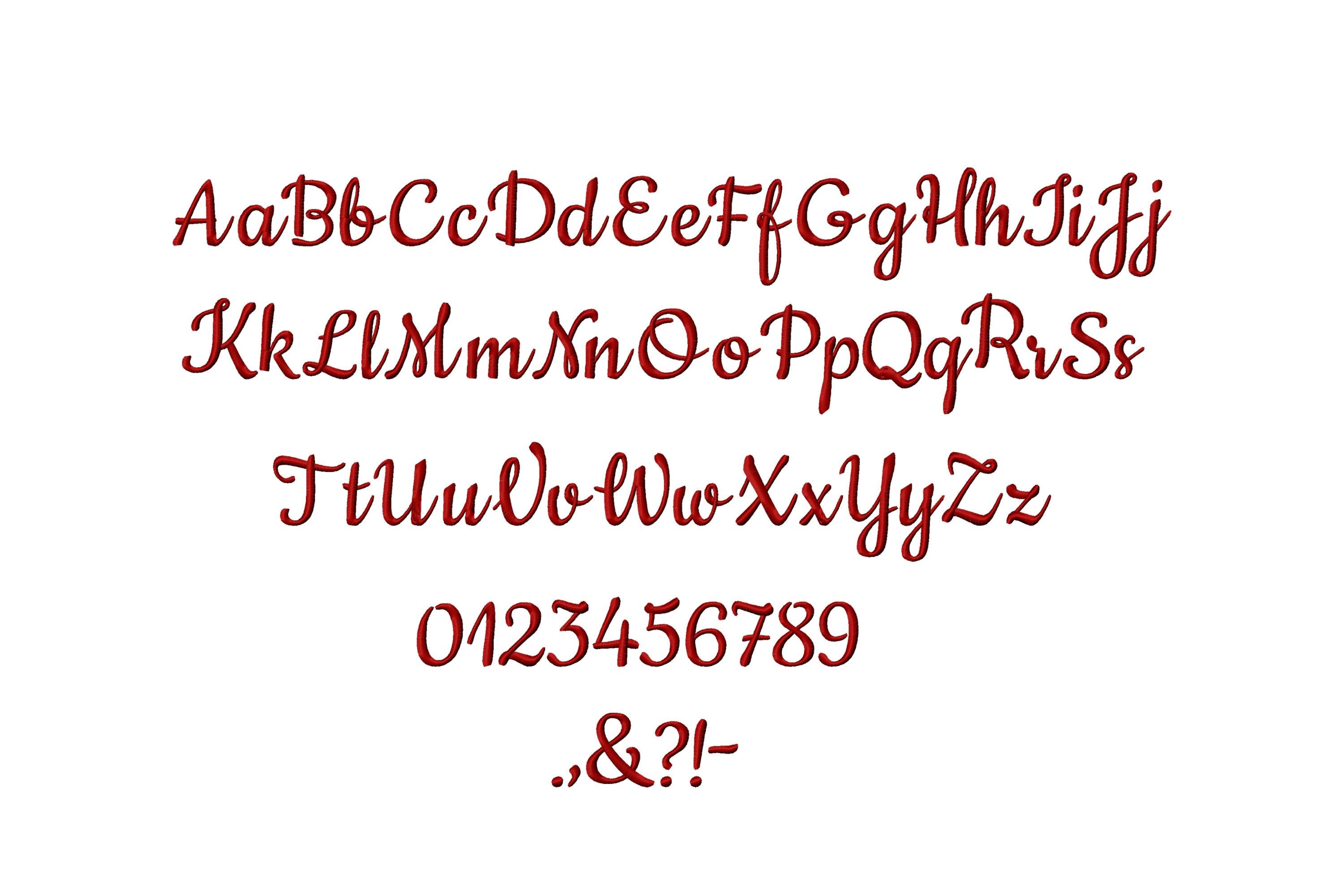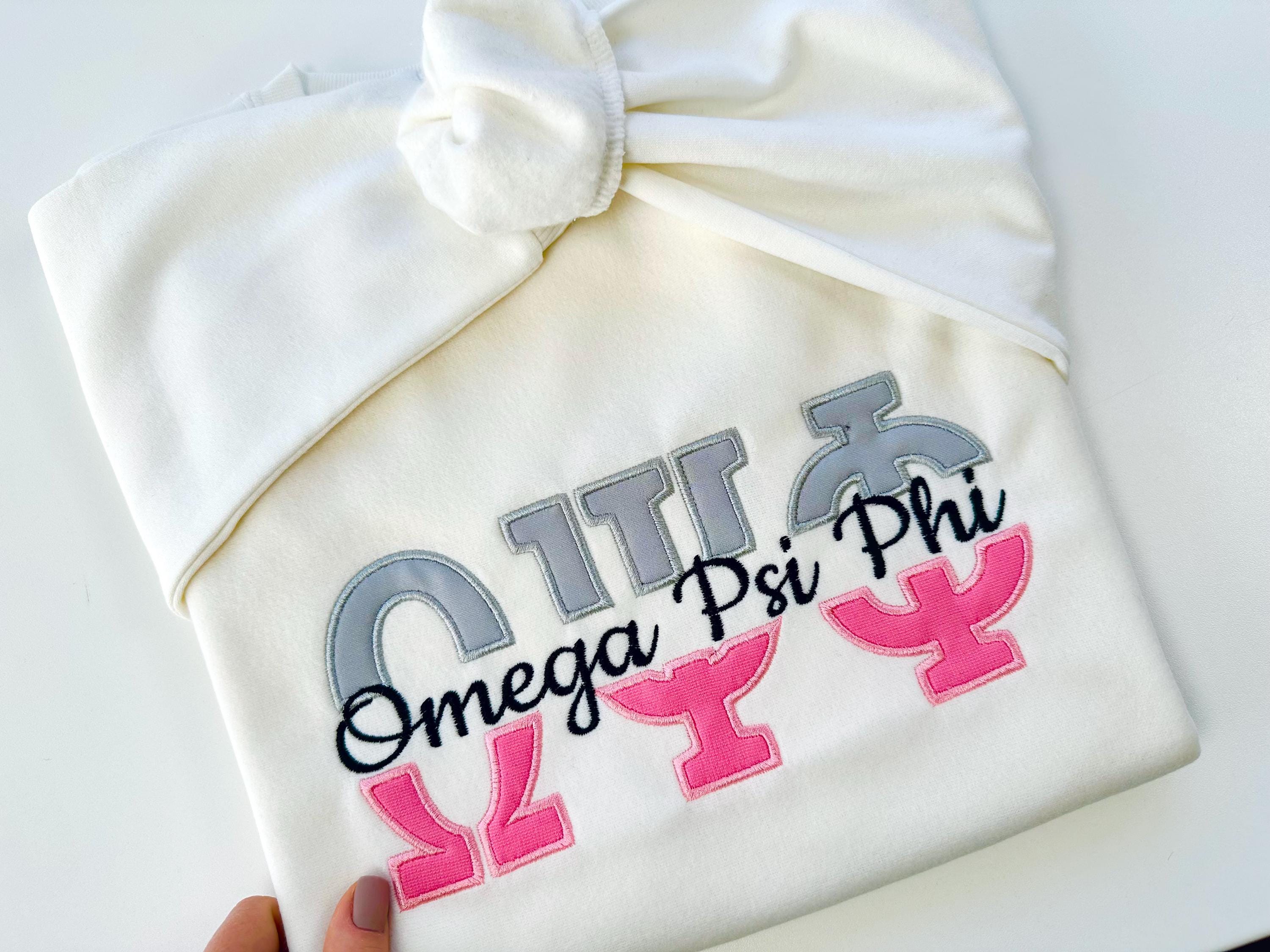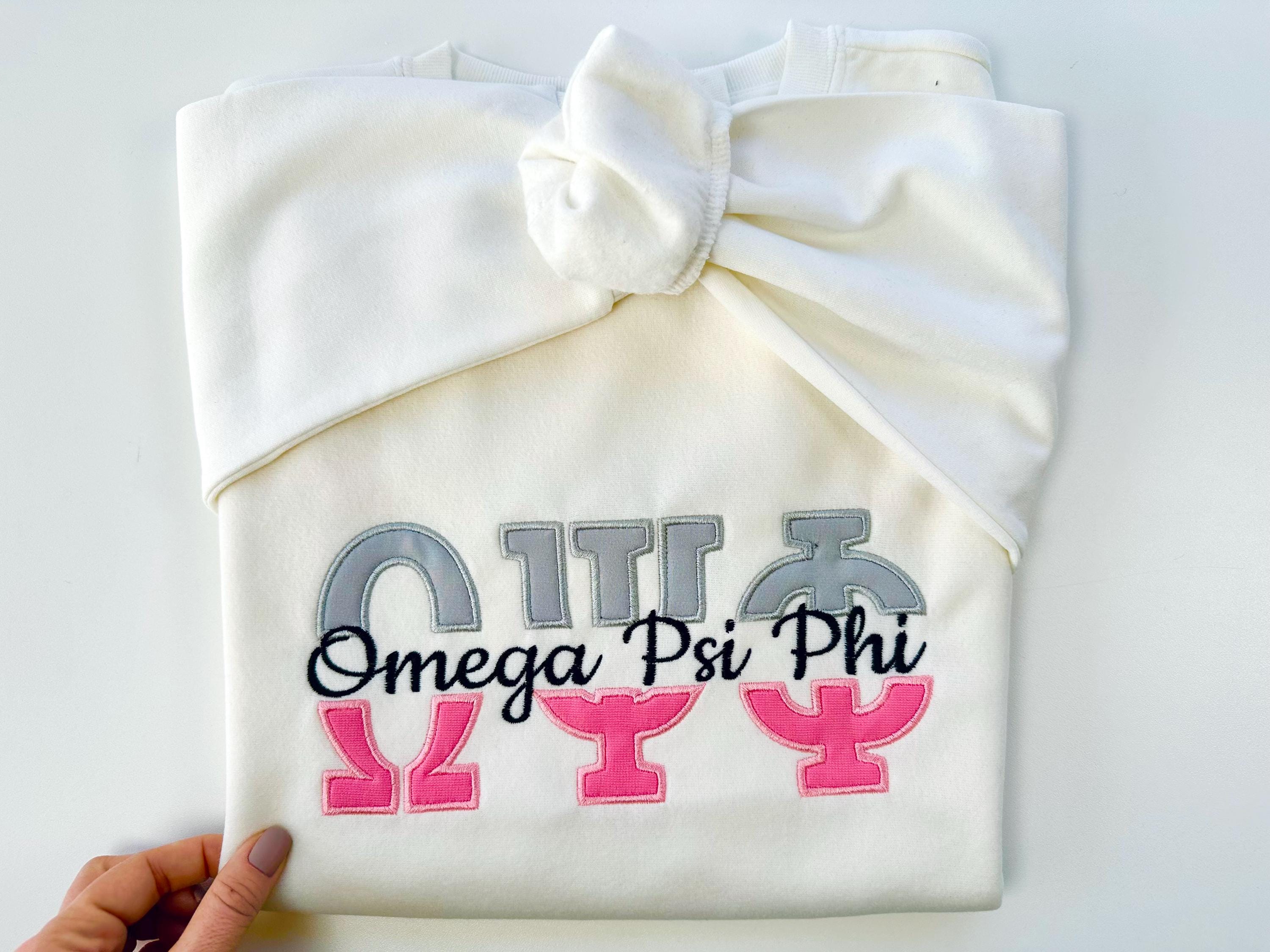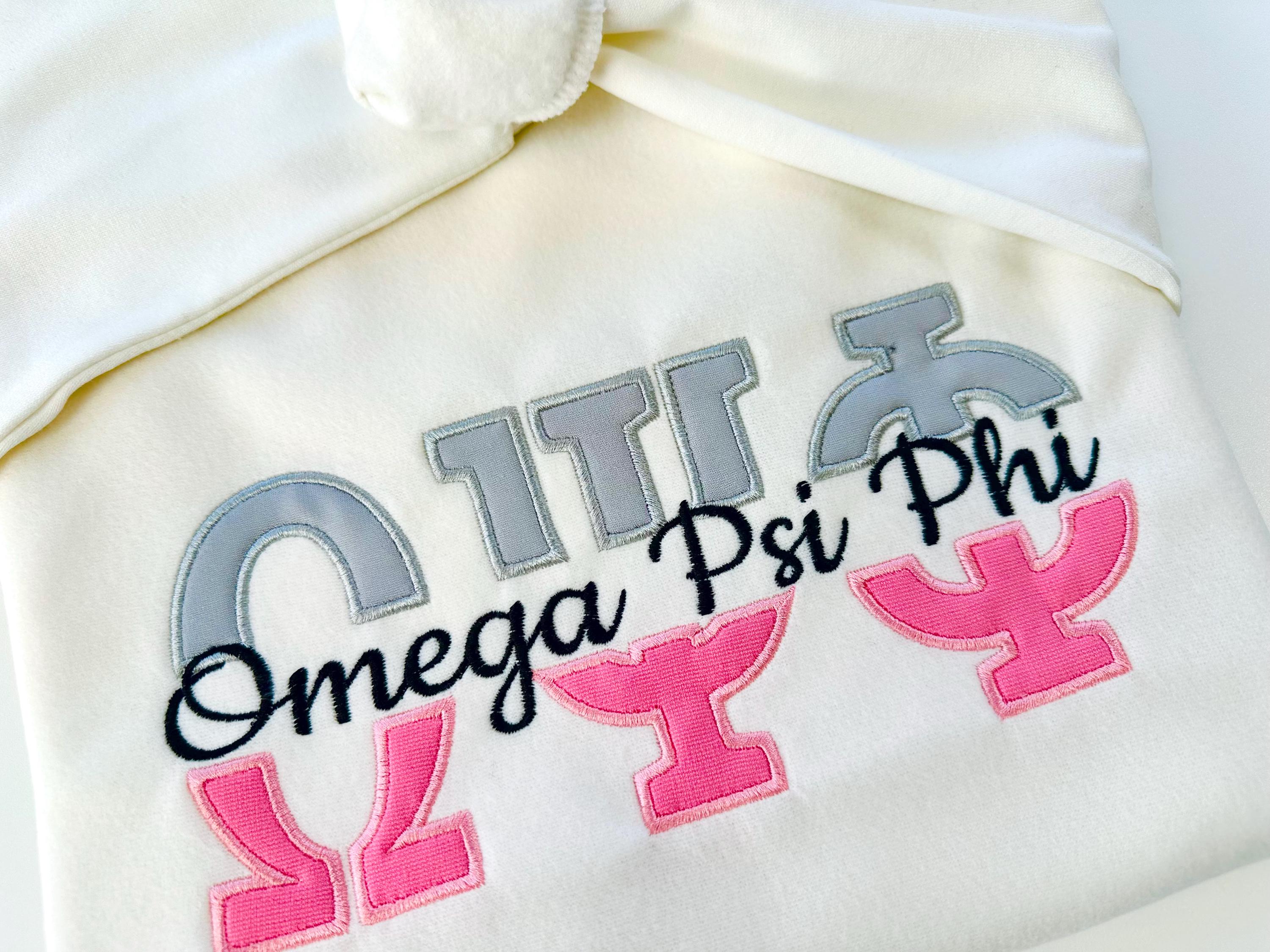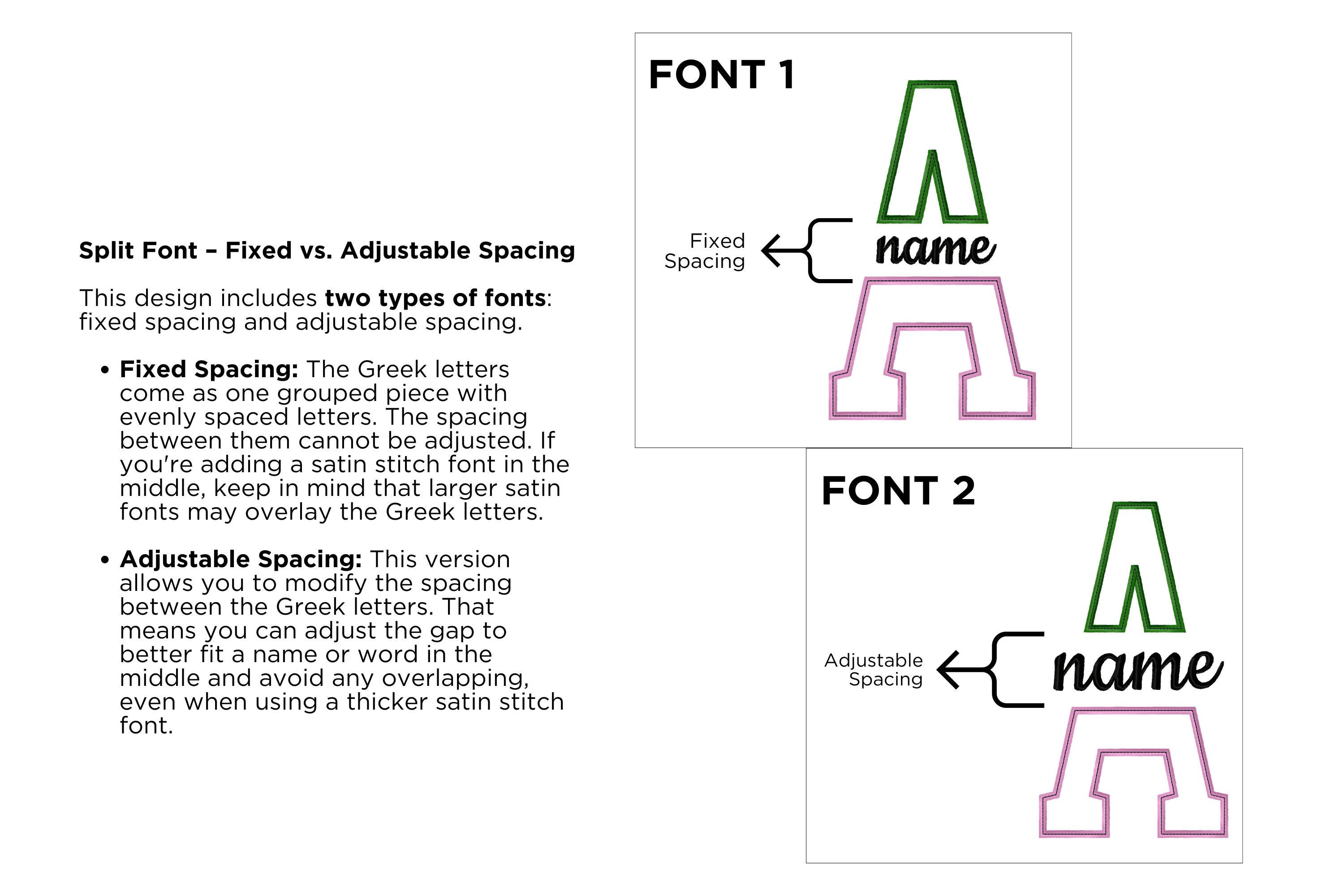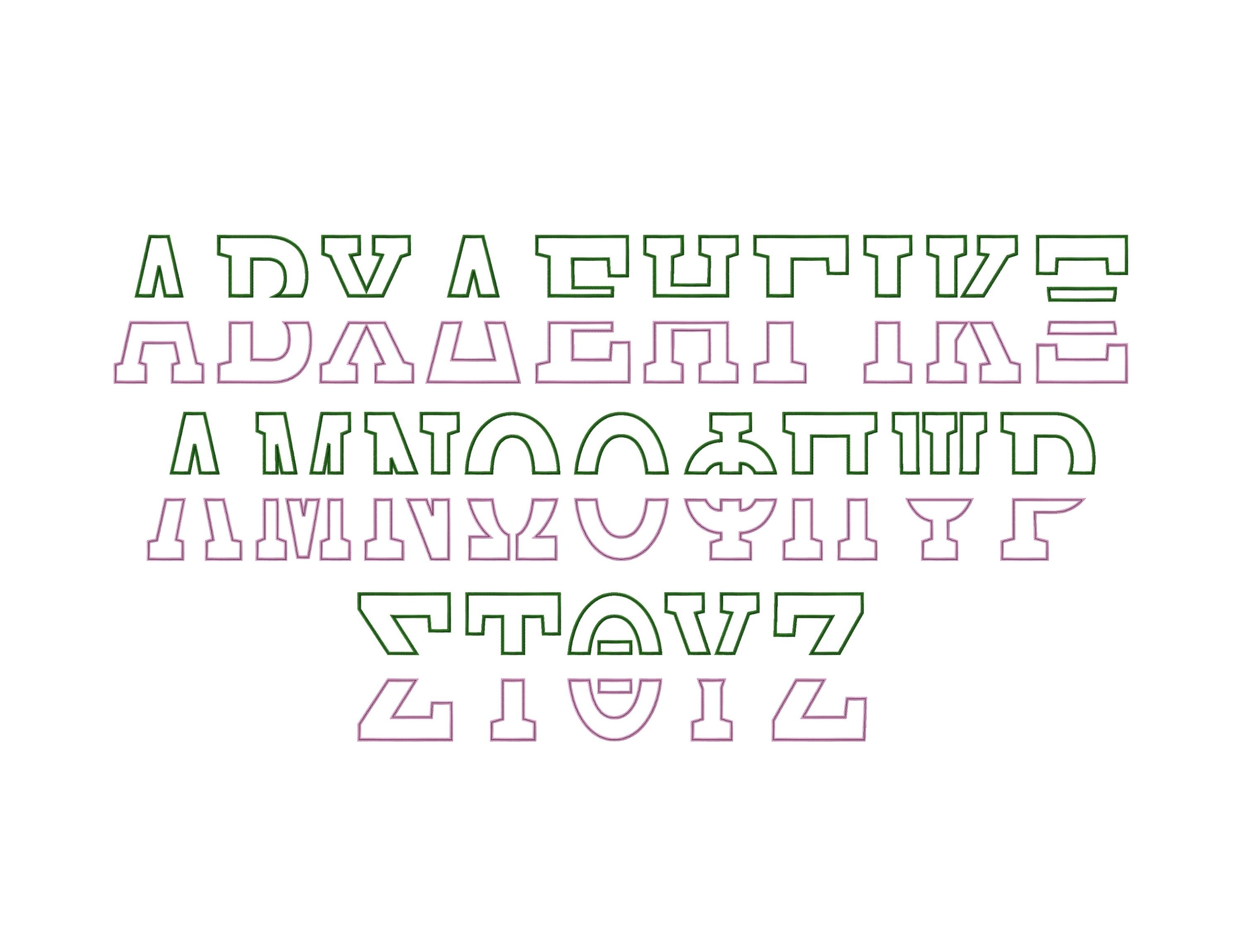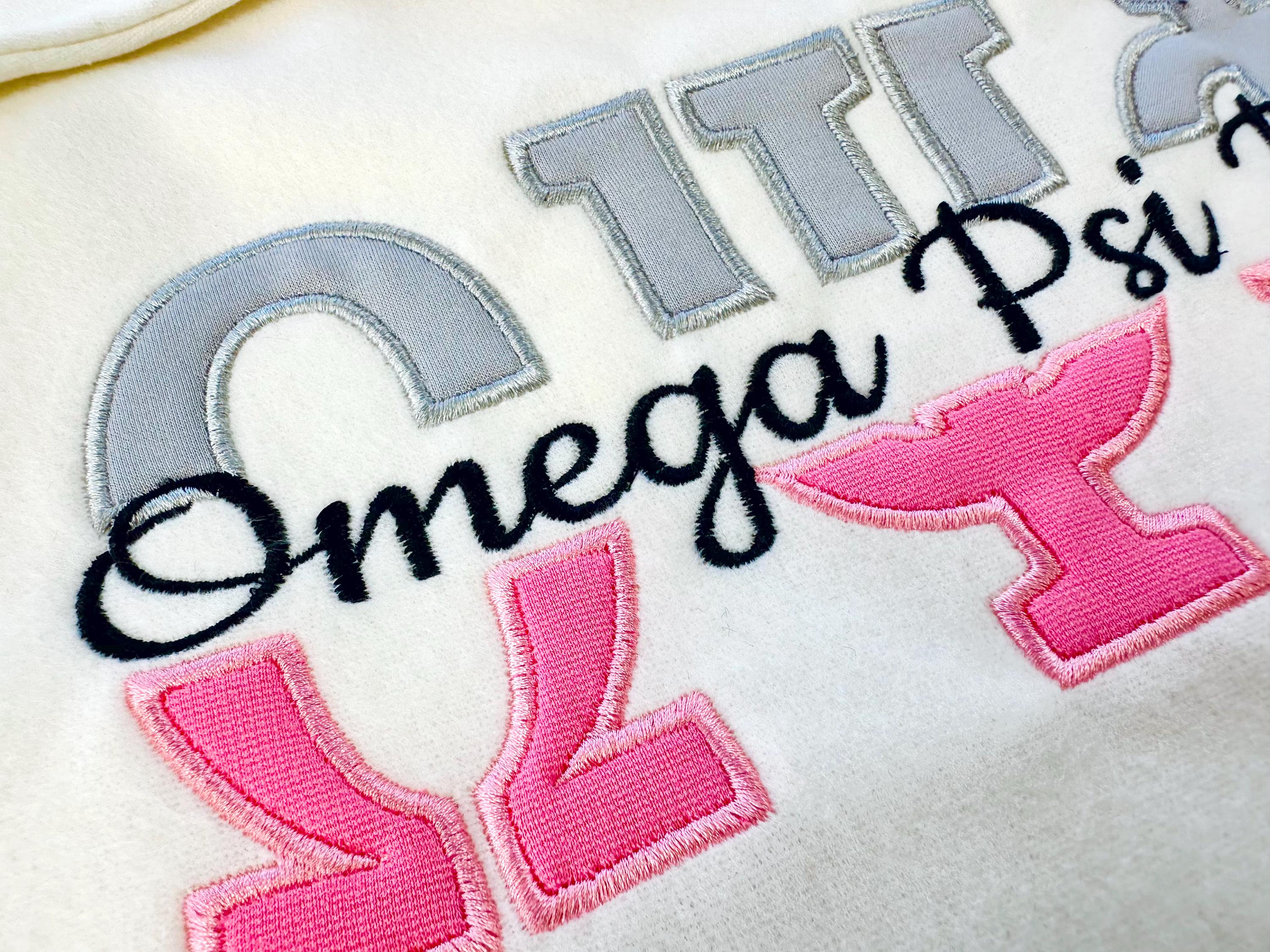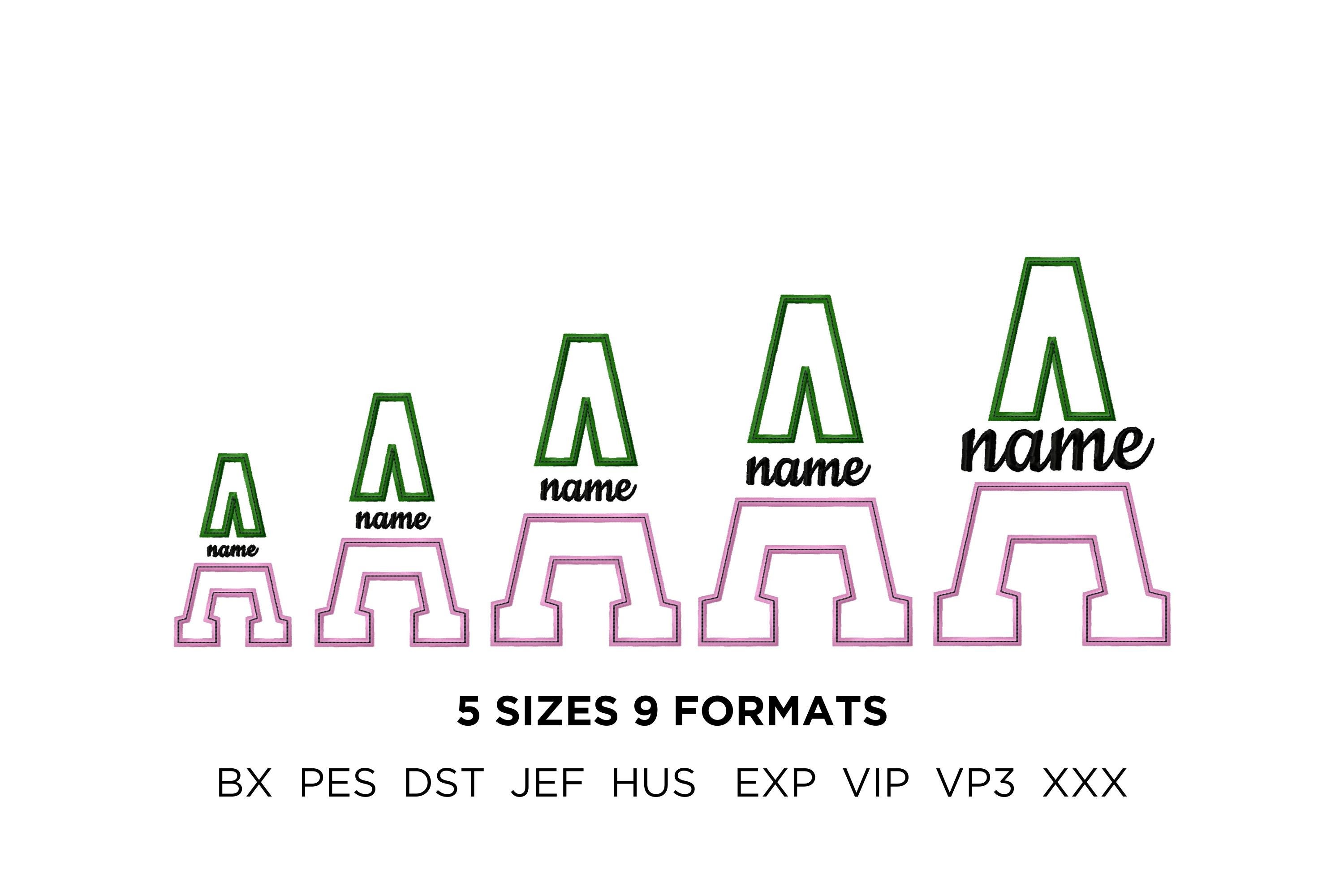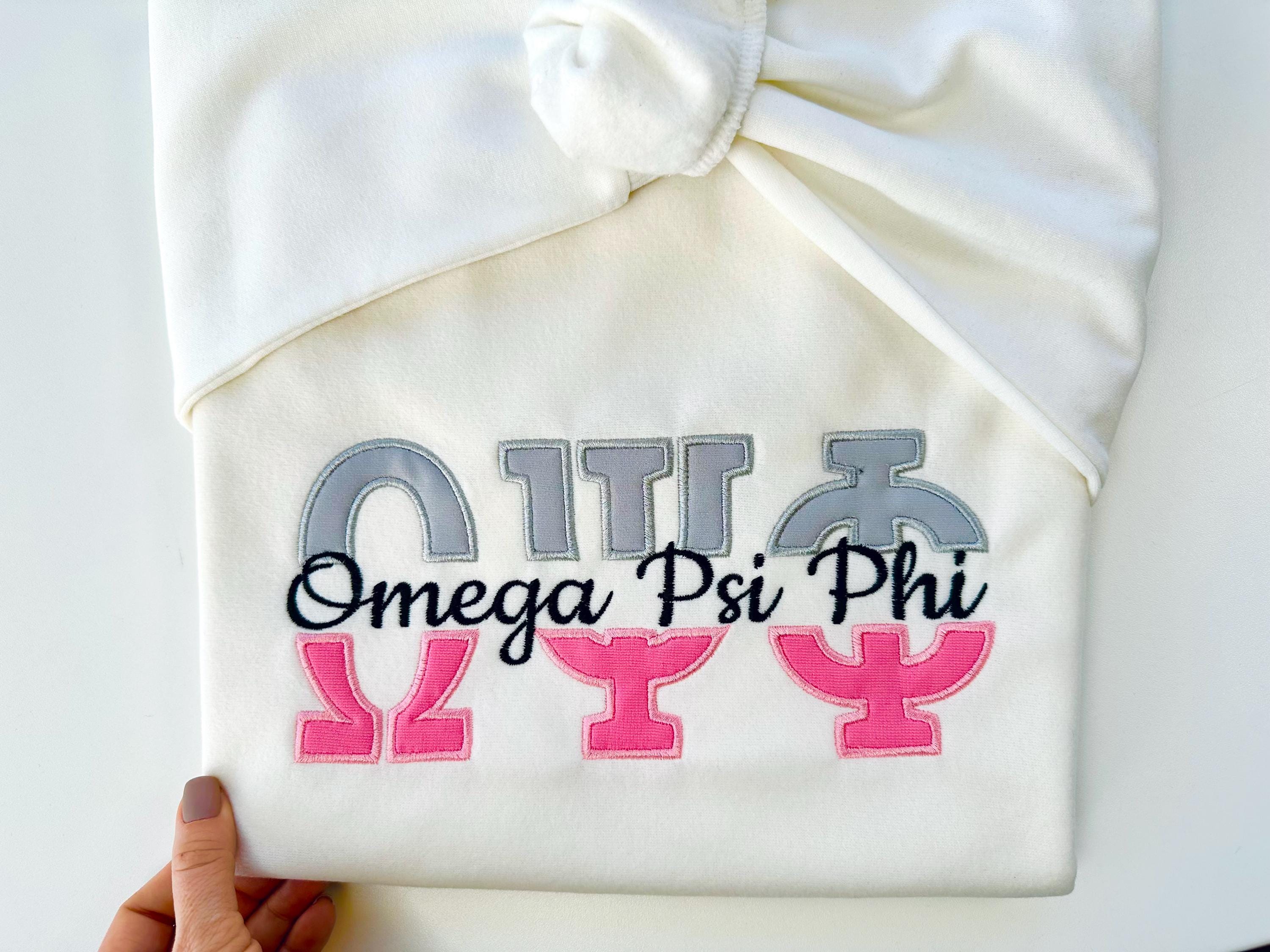
Split Greek FONT Applique and satin stitch Mini Font SET of 2 fonts split alphabet Greek Monogram machine embroidery designs many sizes
Included 2 fonts:
* Split Greek Font - entire alphabet uppercase letters
also, separate top and bottom to adjust the spacing in the middle as you wish
* Handwritten satin stitch Mini font - uppercase, lowercase, numbers, and punctuation.
Split Greek Font
Satin stitch Mini Font